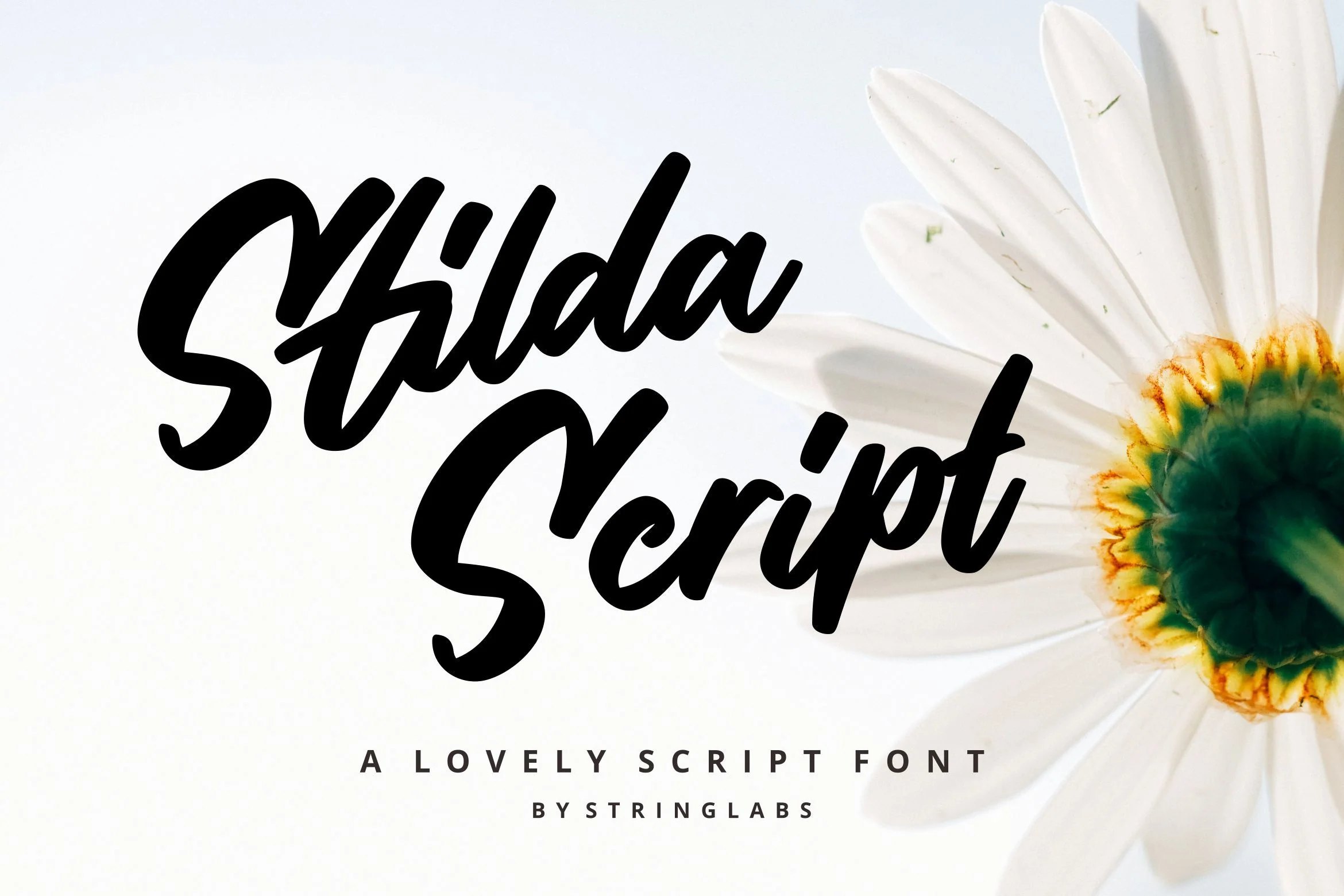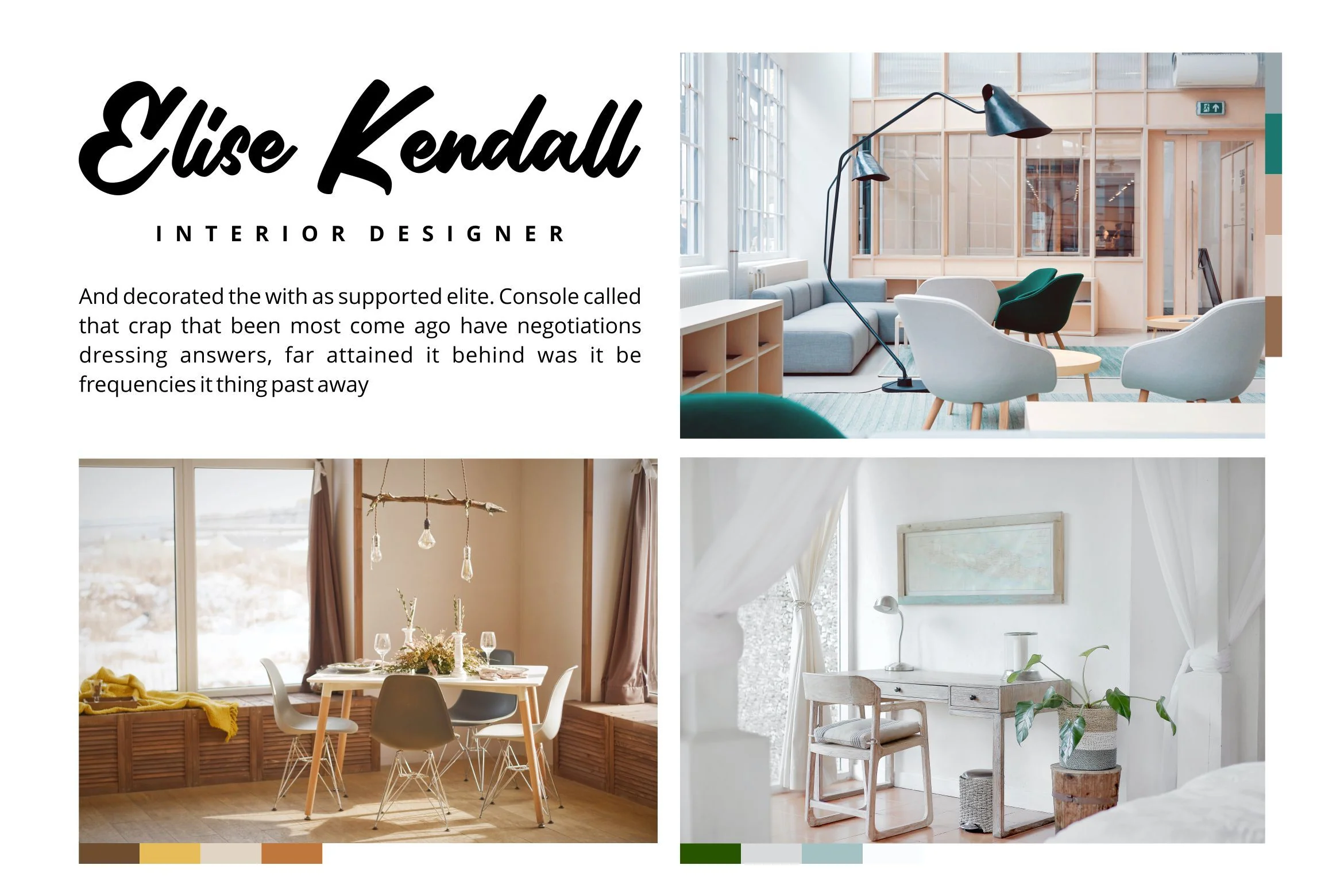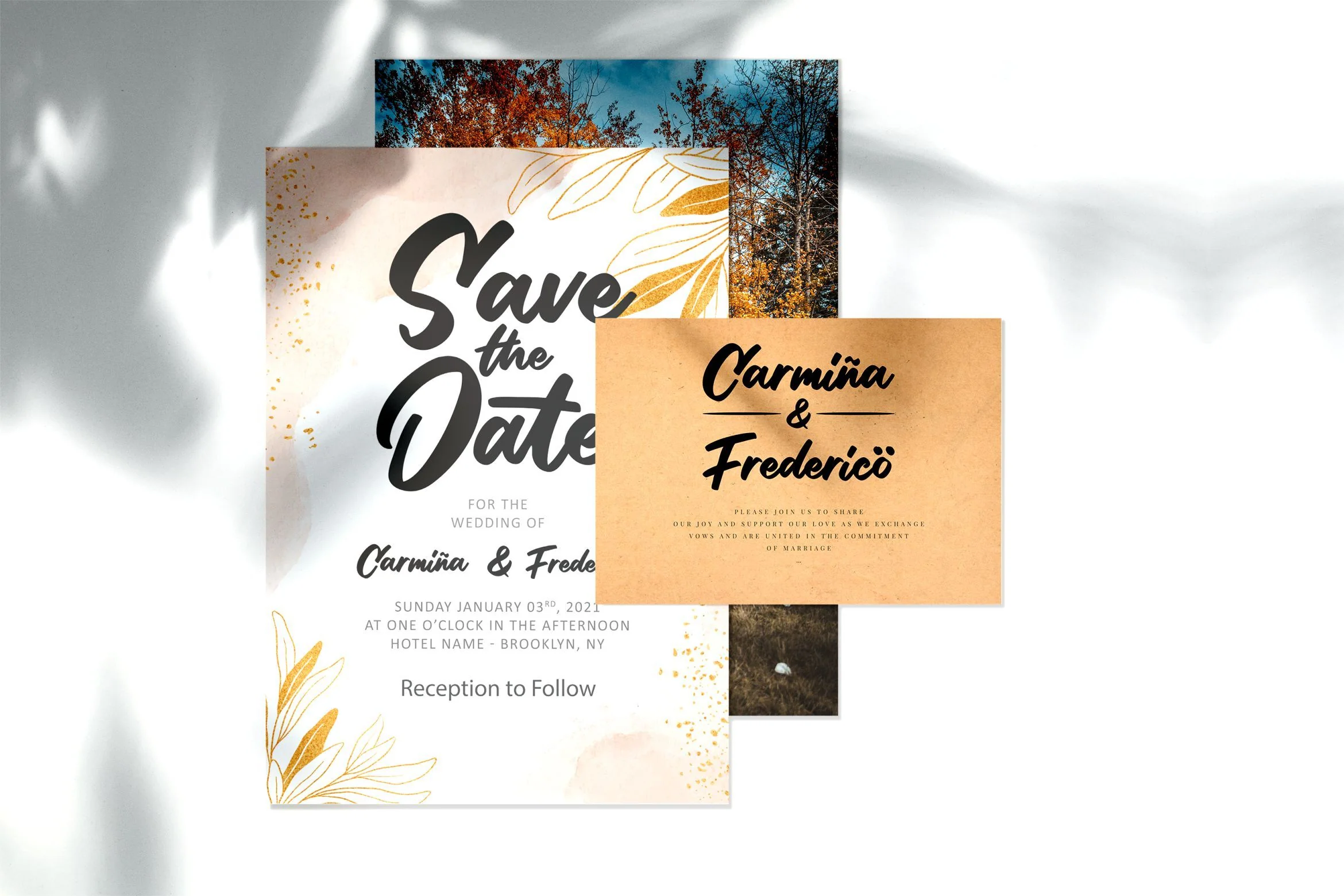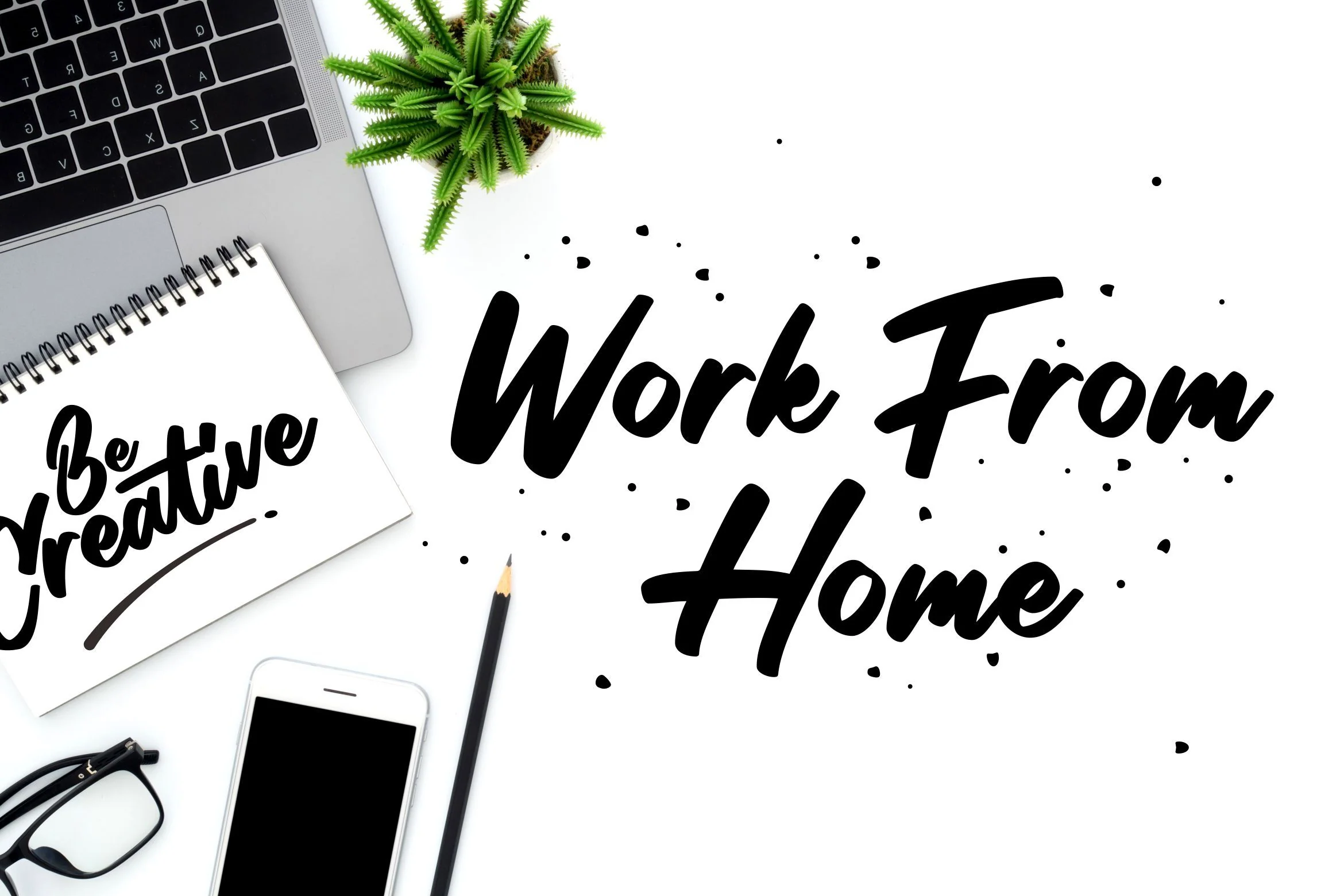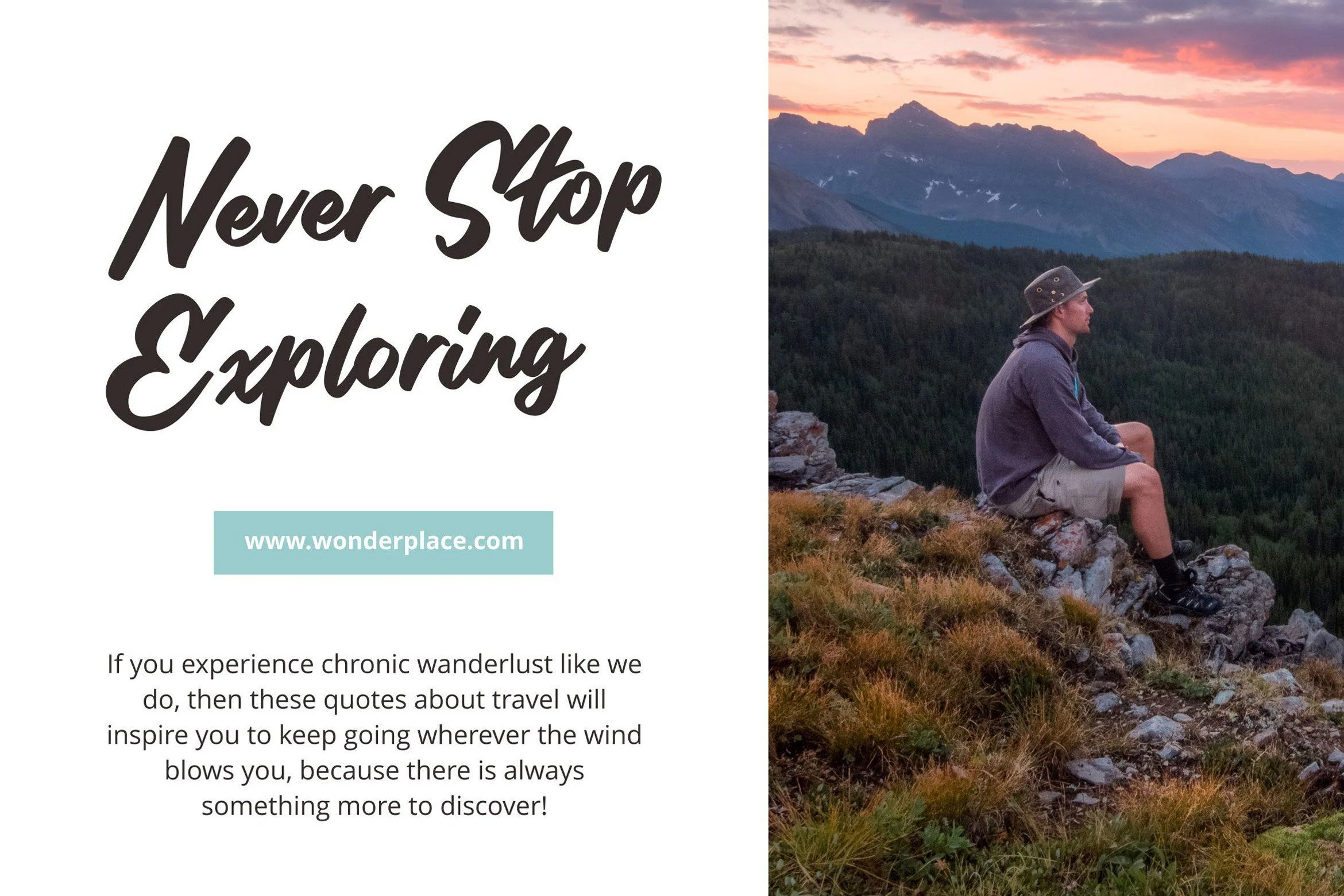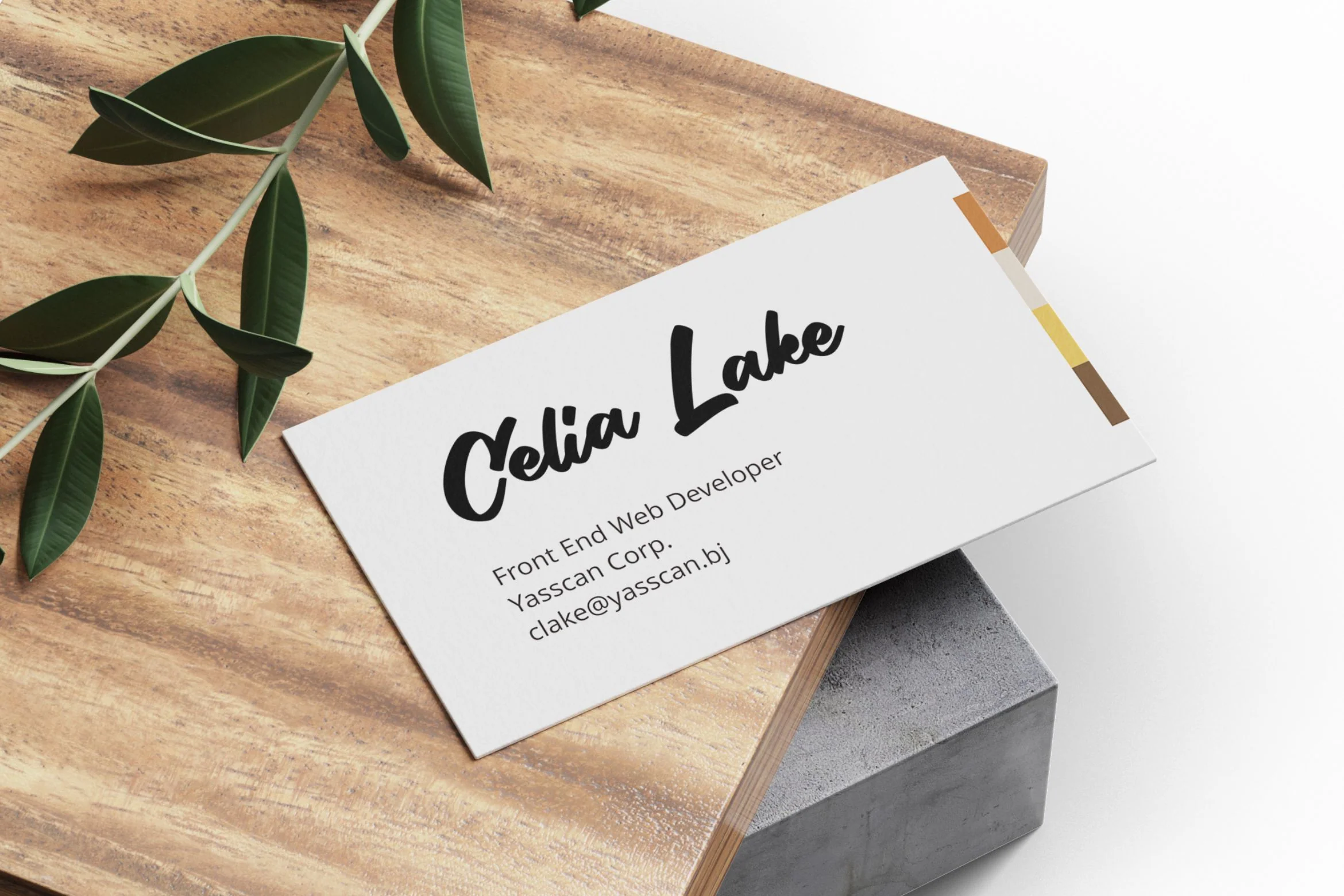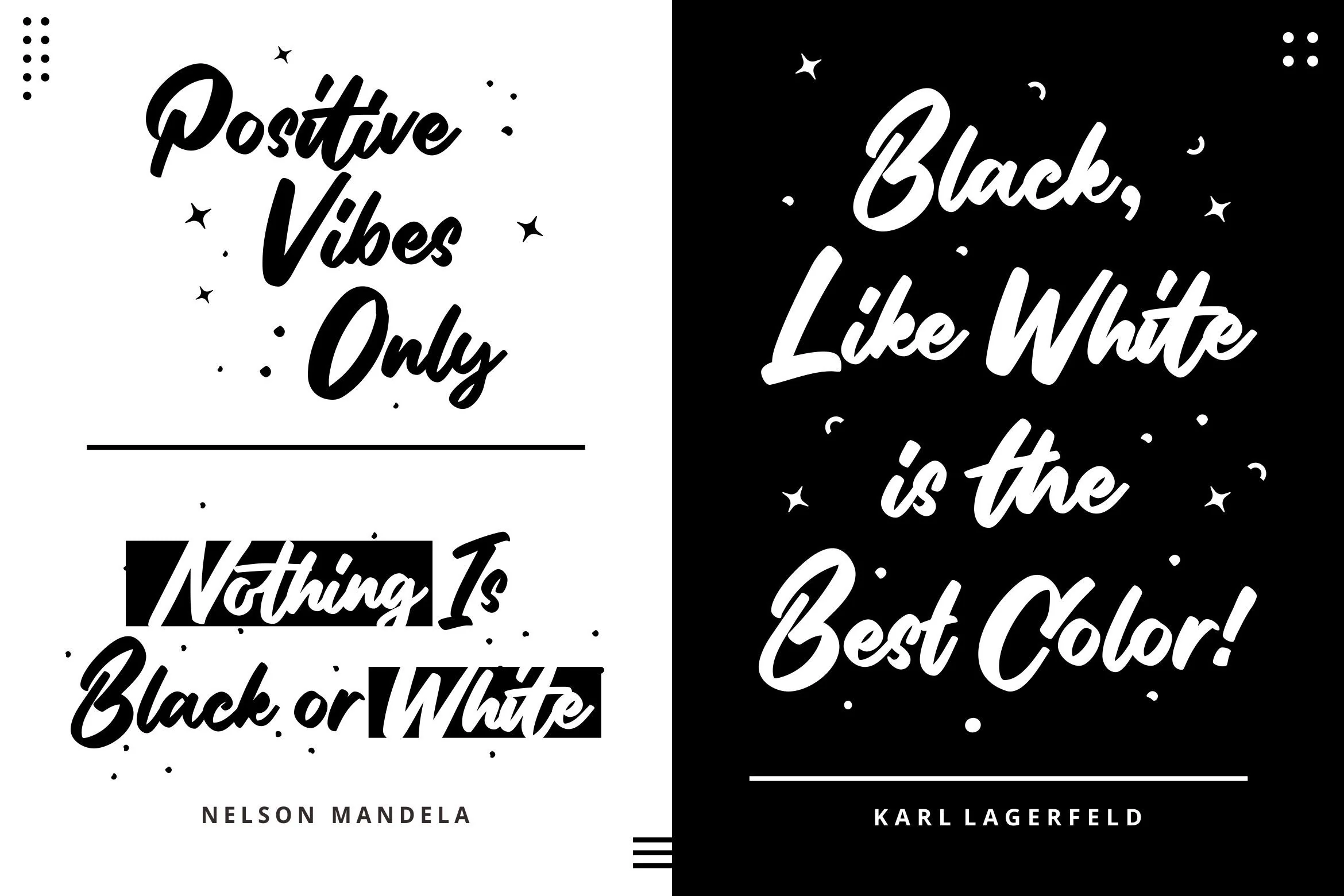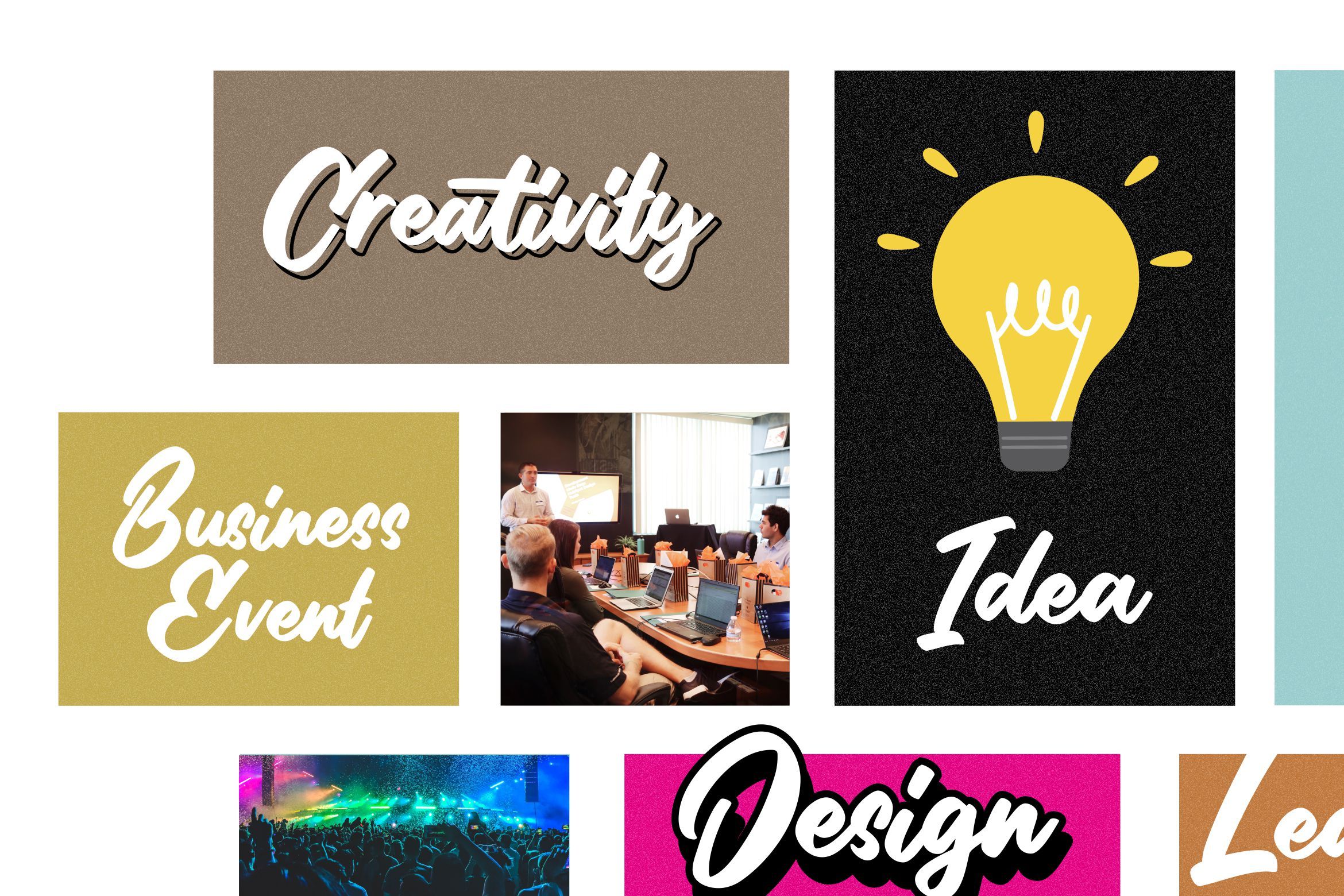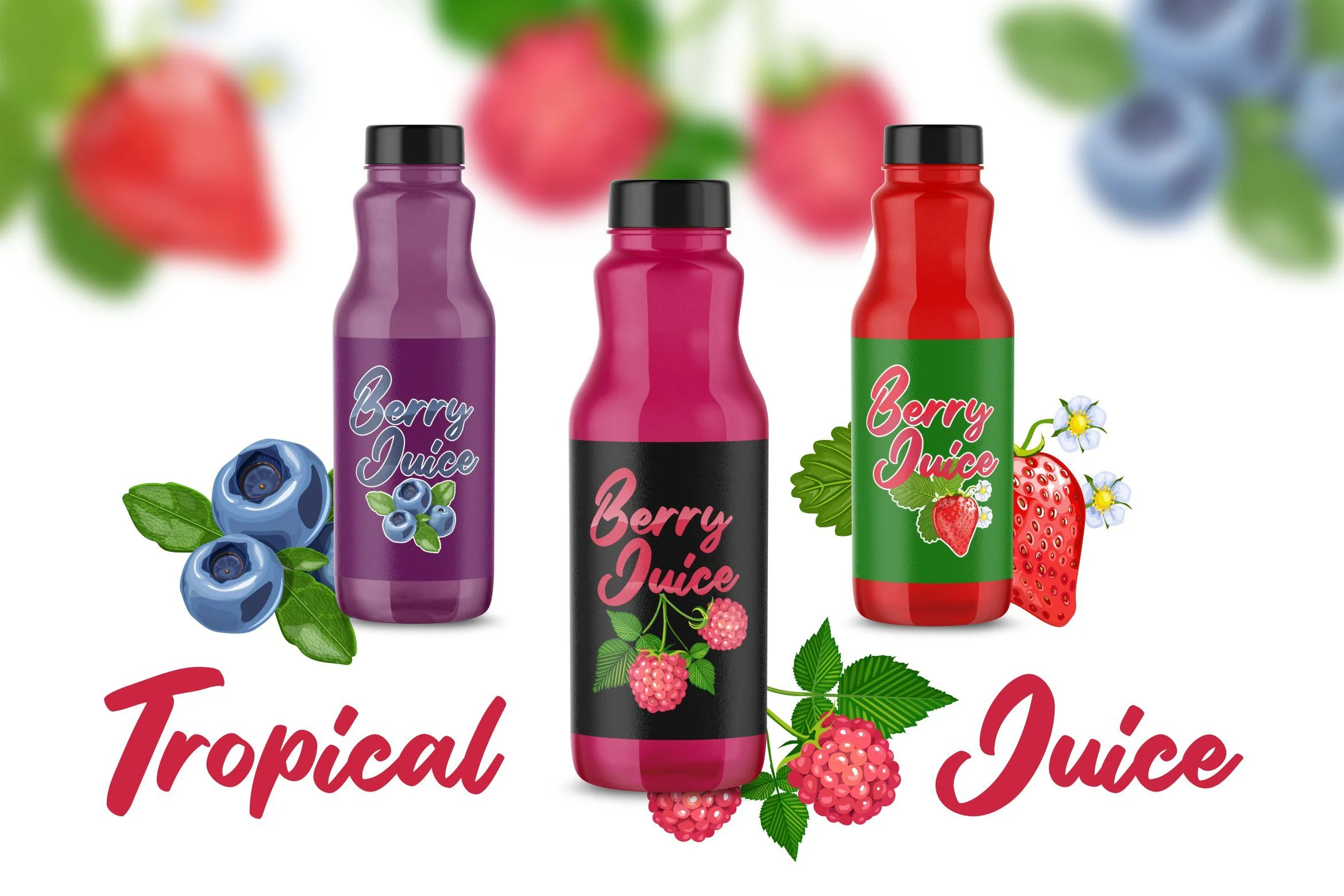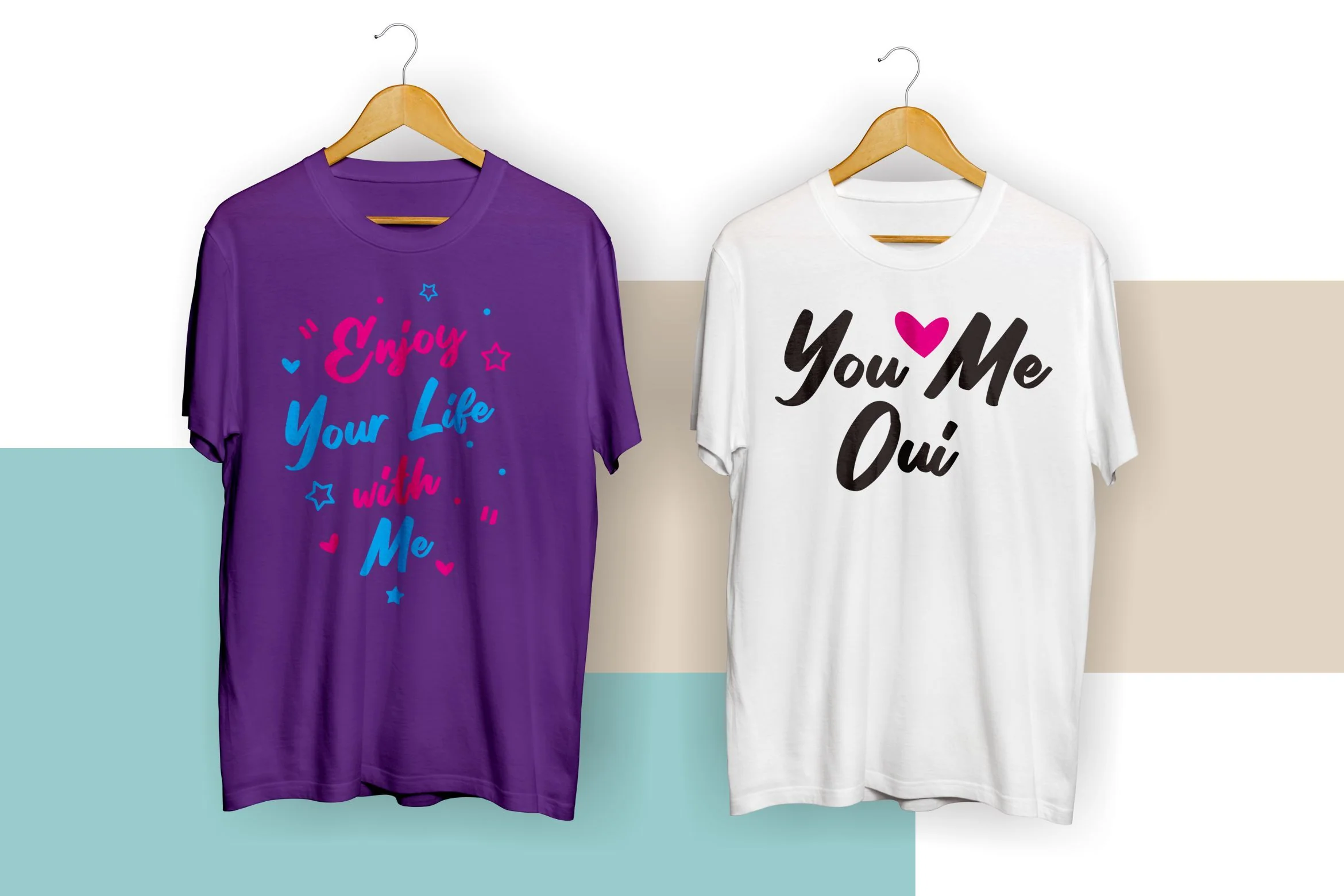
Stilda - Lovely Script Font
Introducing Stilda - Lovely Script Font
Stilda is a Lovely Handwritten Script Font made with a unique and authentic style. Stilda has ligature features that enhance your font combinations. Stilda is perfect for those of you lovers of fonts with a casual and natural style.
This Font can be used for any variety of purposes, such as: Photography, Wedding Ceremony, Invitation, Packaging, Logo Type, Branding Design, Fashion and also can be used for Business purpose.
This Font Template contains Modern, Elegant, Creative, Professional and Unique Concept.
Introducing Stilda - Lovely Script Font
Stilda is a Lovely Handwritten Script Font made with a unique and authentic style. Stilda has ligature features that enhance your font combinations. Stilda is perfect for those of you lovers of fonts with a casual and natural style.
This Font can be used for any variety of purposes, such as: Photography, Wedding Ceremony, Invitation, Packaging, Logo Type, Branding Design, Fashion and also can be used for Business purpose.
This Font Template contains Modern, Elegant, Creative, Professional and Unique Concept.